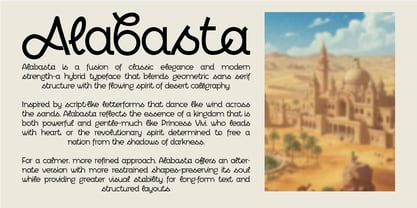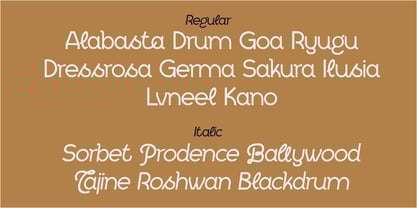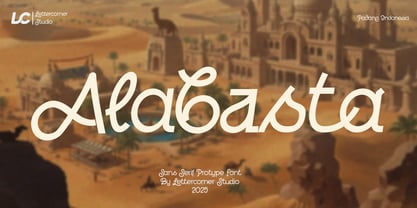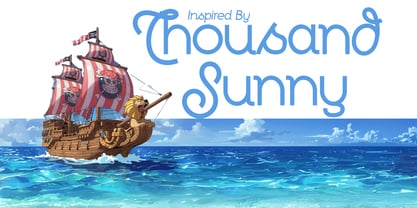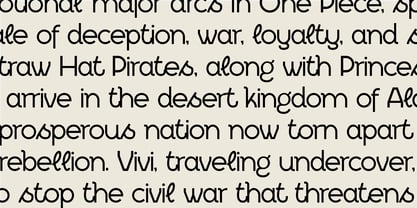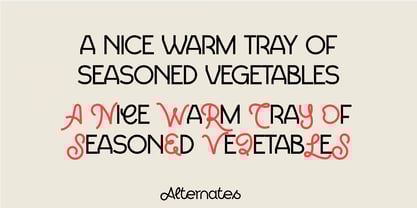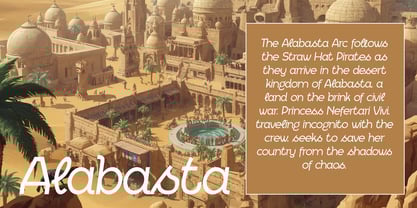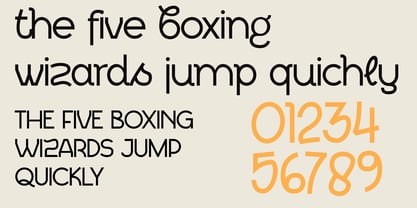
Alabasta
by Mevstory Studio
The Alabasta Font Family was designed by Muhammad Afif Ersya and published by Mevstory Studio. Alabasta contains 2 styles and family package options. More about this family
Alabasta is a fusion of classic elegance and modern strength—a hybrid typeface that blends geometric sans serif structure with the flowing spirit of desert calligraphy.
Inspired by script-like letterforms that dance like wind across the sands, Alabasta reflects the essence of a kingdom that is both powerful and gentle—much like Princess Vivi, who leads with heart, or the revolutionary spirit determined to free a nation from the shadows of darkness.
For a calmer, more refined approach, Alabasta offers an alternate version with more restrained shapes—preserving its soul while providing greater visual stability for long-form text and structured layouts.
Alabasta comes together like the elements of an epic tale: sturdy for body text, striking for display. It brings an exotic, characterful presence to every project—perfect for branding, advertising, packaging, headlines, magazine editorials, websites, logos, and more.
Alabasta is more than just a typeface—it is a story. A journey. A rebellion against the ordinary. A typographic kingdom waiting to be brought to life in your design.